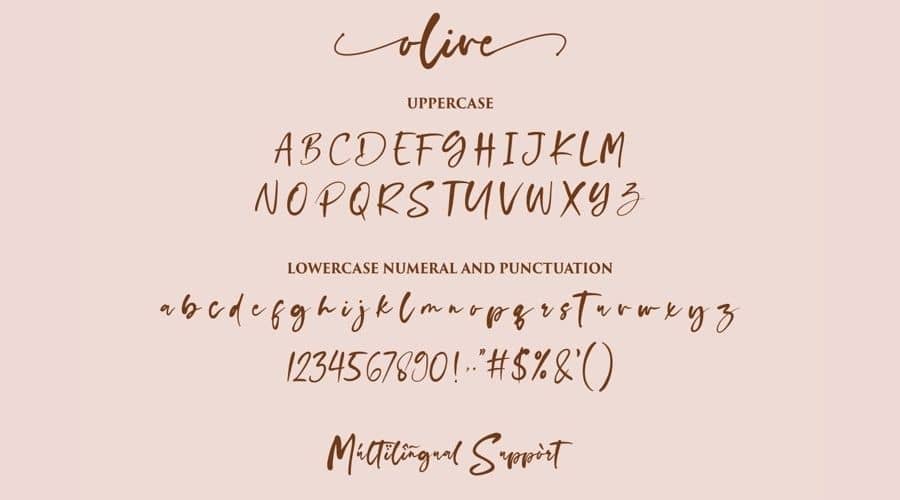
Olive Script Font
Good day, everyone! Olive Font is a beautiful script and calligraphy font. It’s a graceful handwritten typeface. This Font has a thin modern calligraphy style, making it ideal for branding and digital creations. It’s a new handwritten typeface that’s both current and attractive. Olive Script free for personal use. The Font is designed and published by fikryal on January 28, 2020. The beautiful Script Font is available in OTF and TTF file types.
Olive Script Font is Ideal for logos, branding, invitations, titles, wedding designs, social media posts, advertisements, product packaging, product designs, labels, photography, watermarks, special events, magazines, and web design, among other things.
StyleScript, Calligraphy